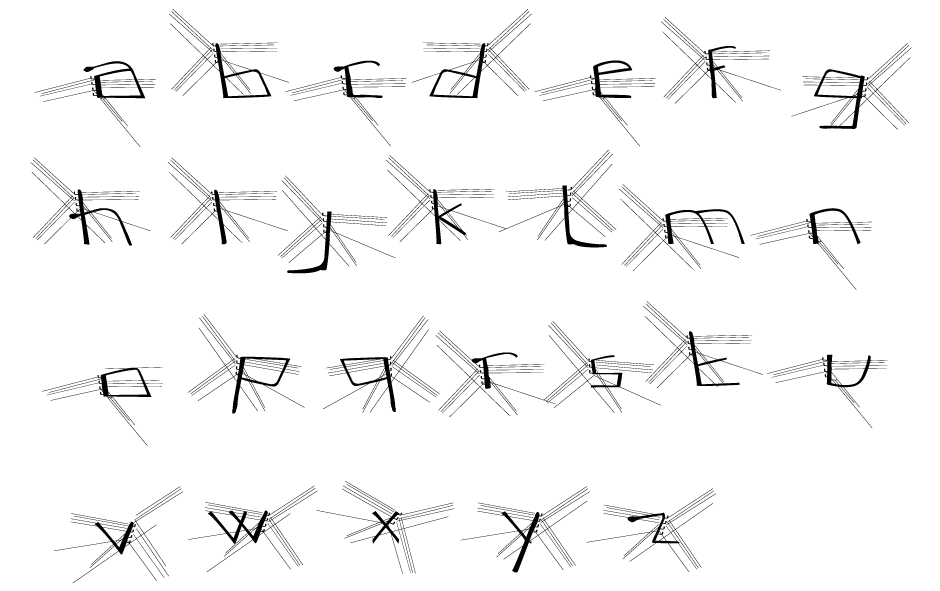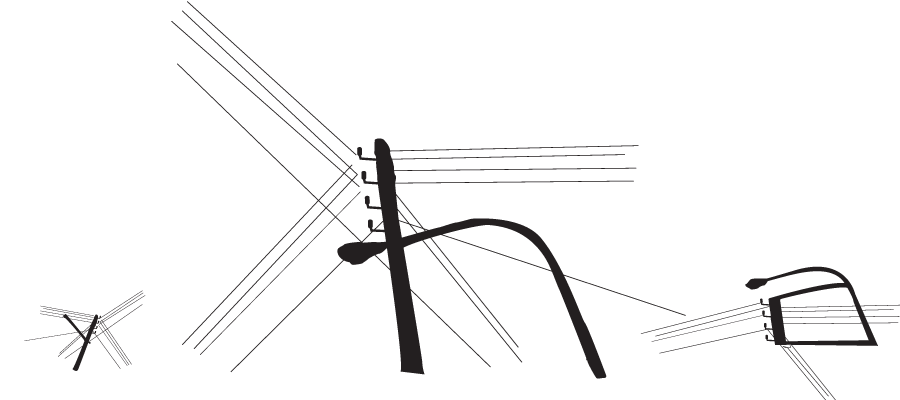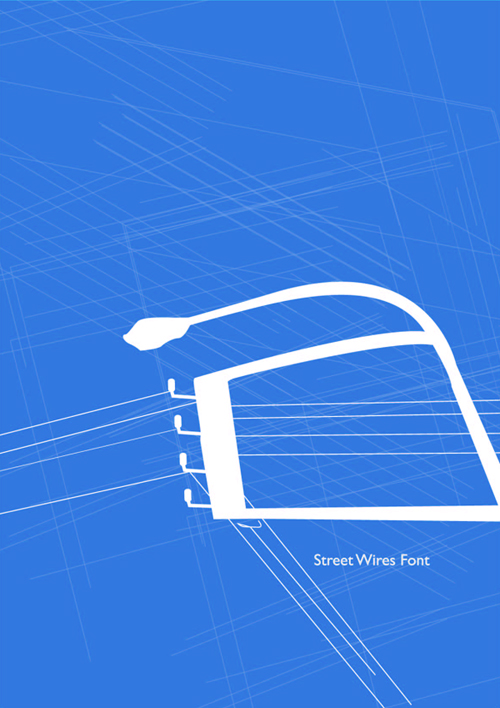
streetwire
by Hayat Zock
WHEN 2010
WHERE Beirut
WHAT Reflection of the Lebanese urban environment.
WHO Hayat Zock
WHAT The streetwire font is a reflection of the Lebanese urban environment. It depicts the condensed structures created by local electric and communication wires.